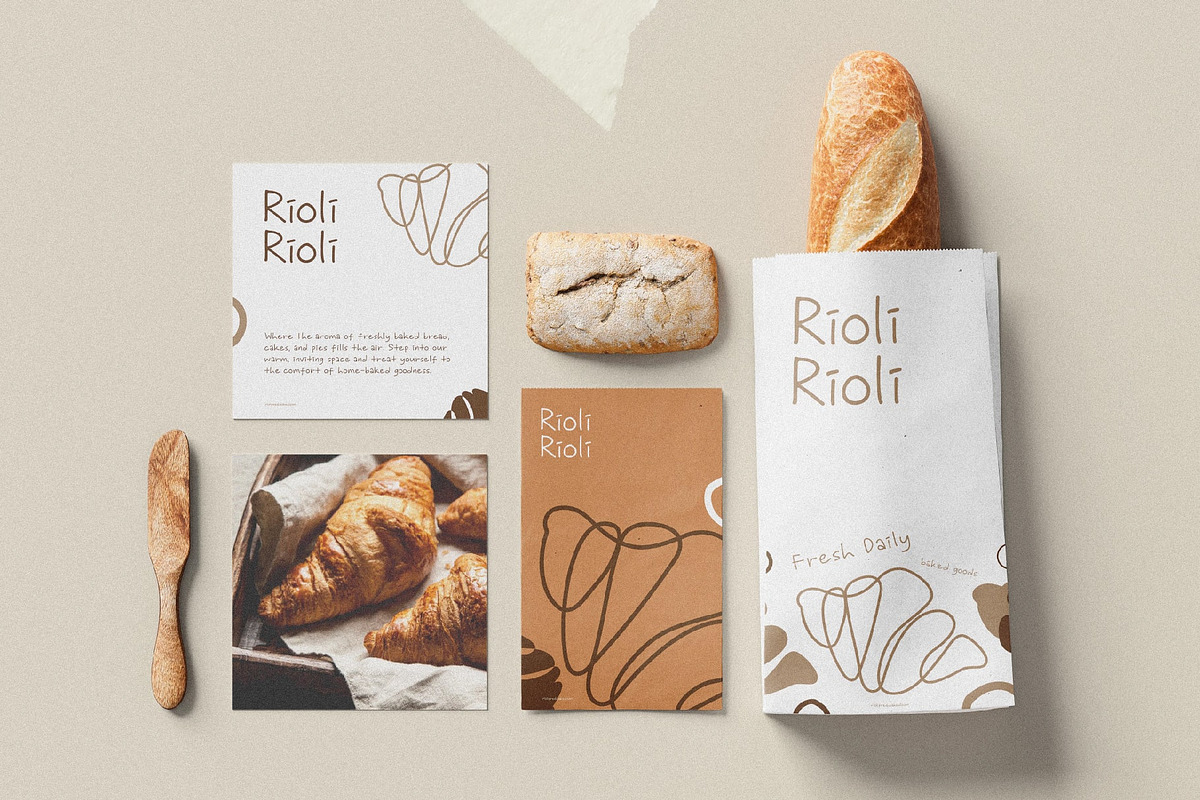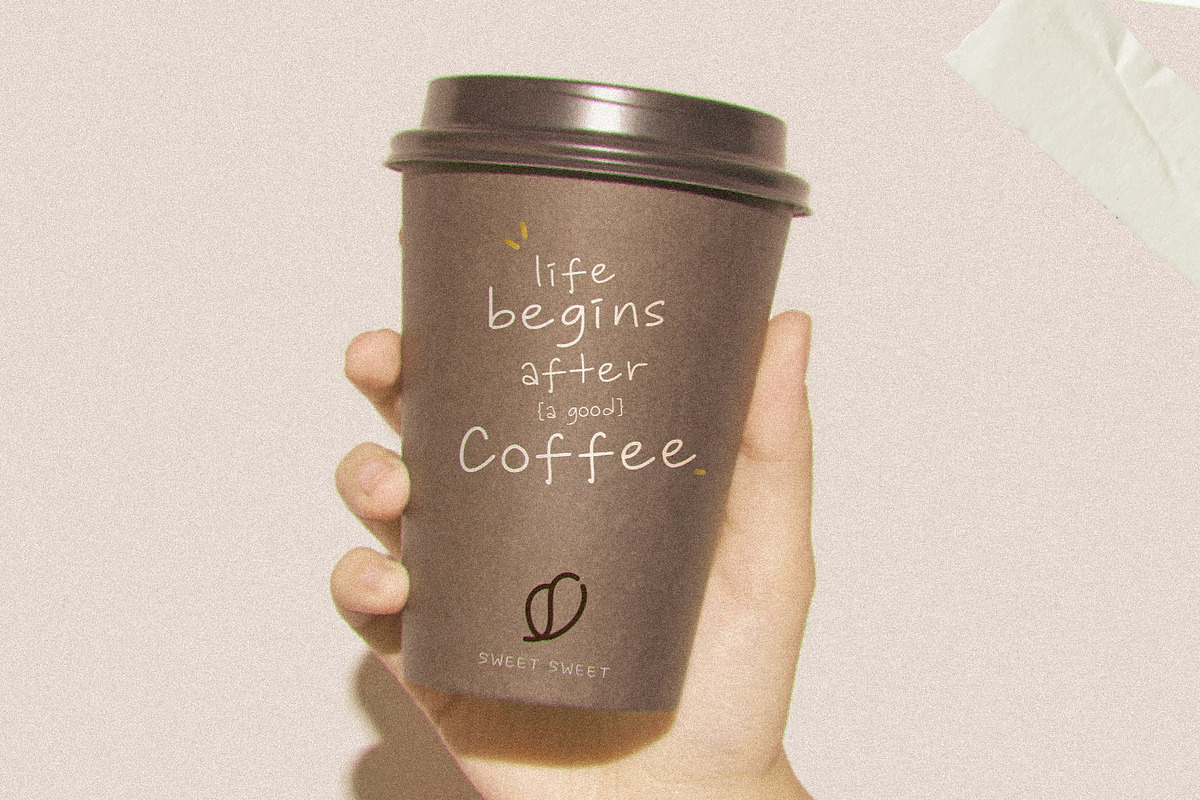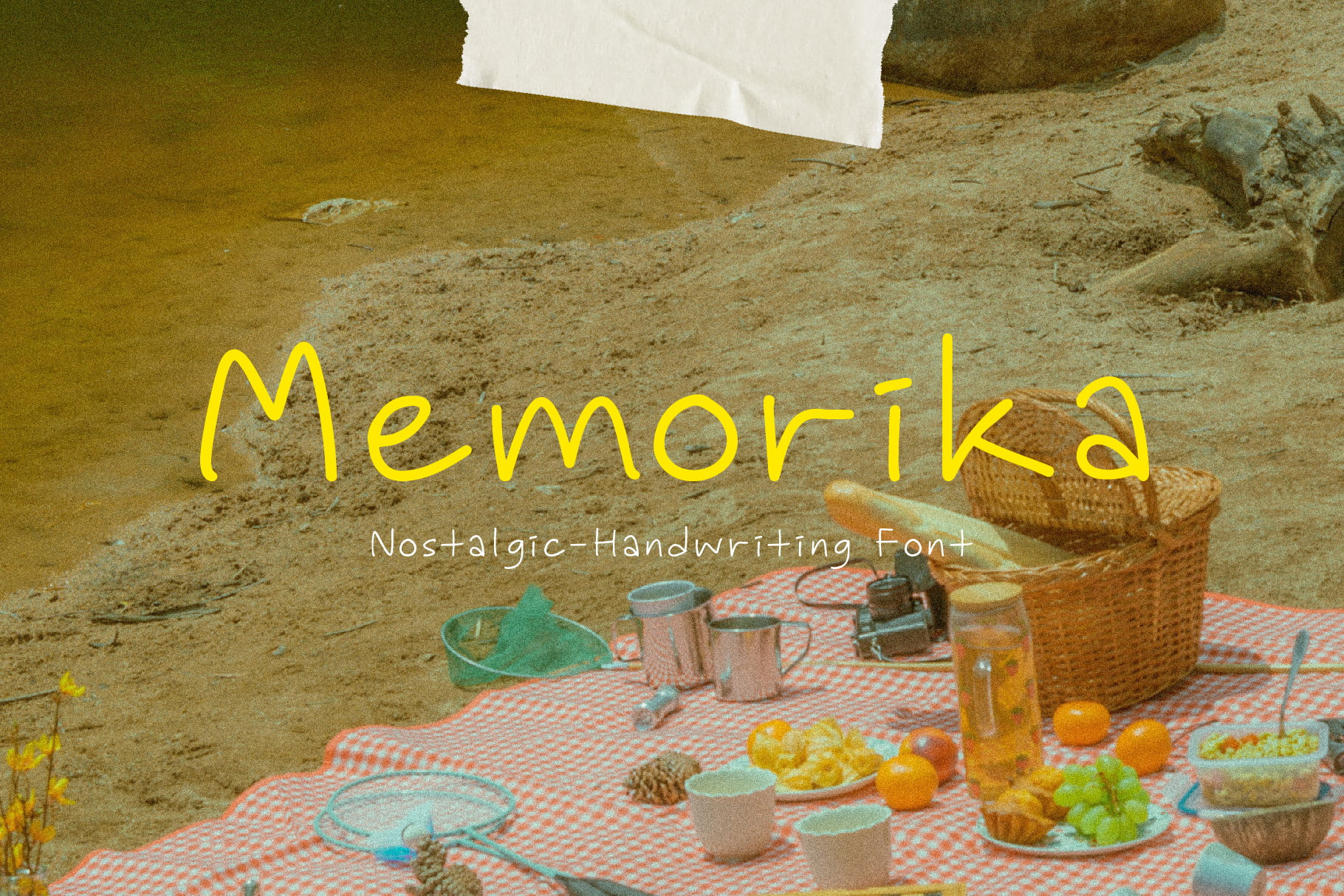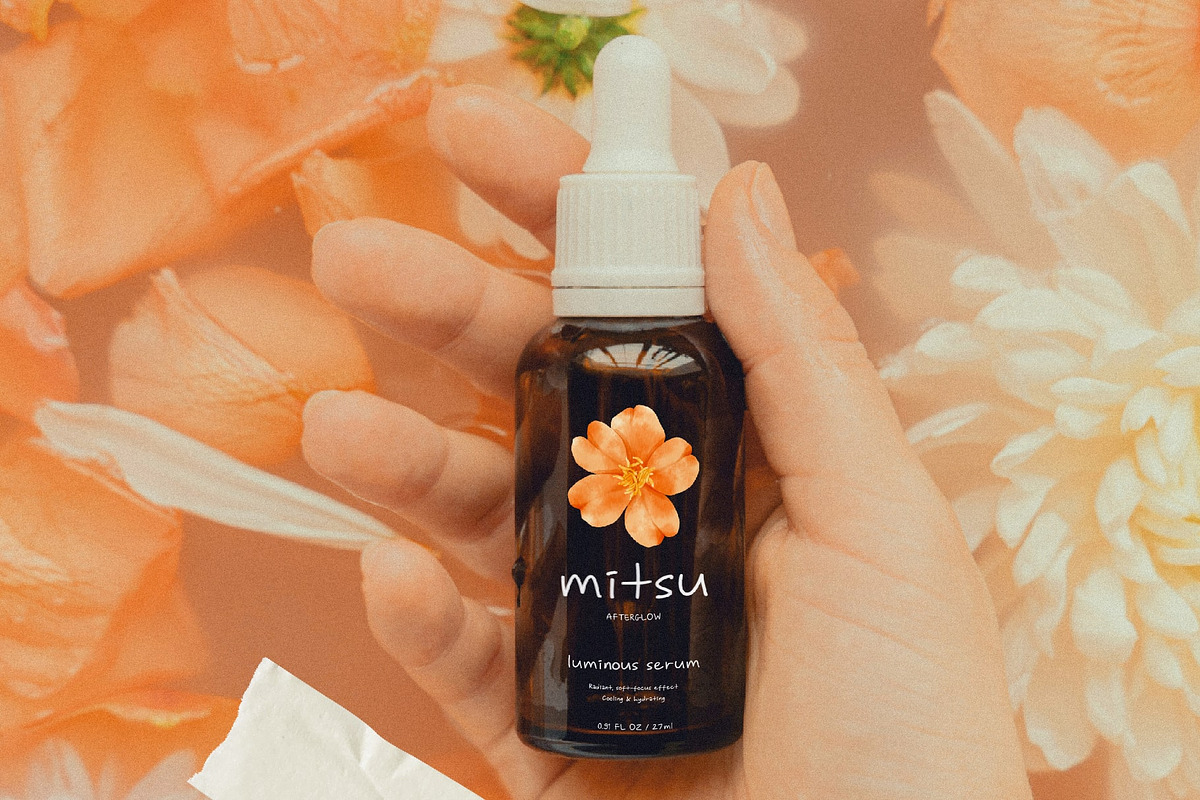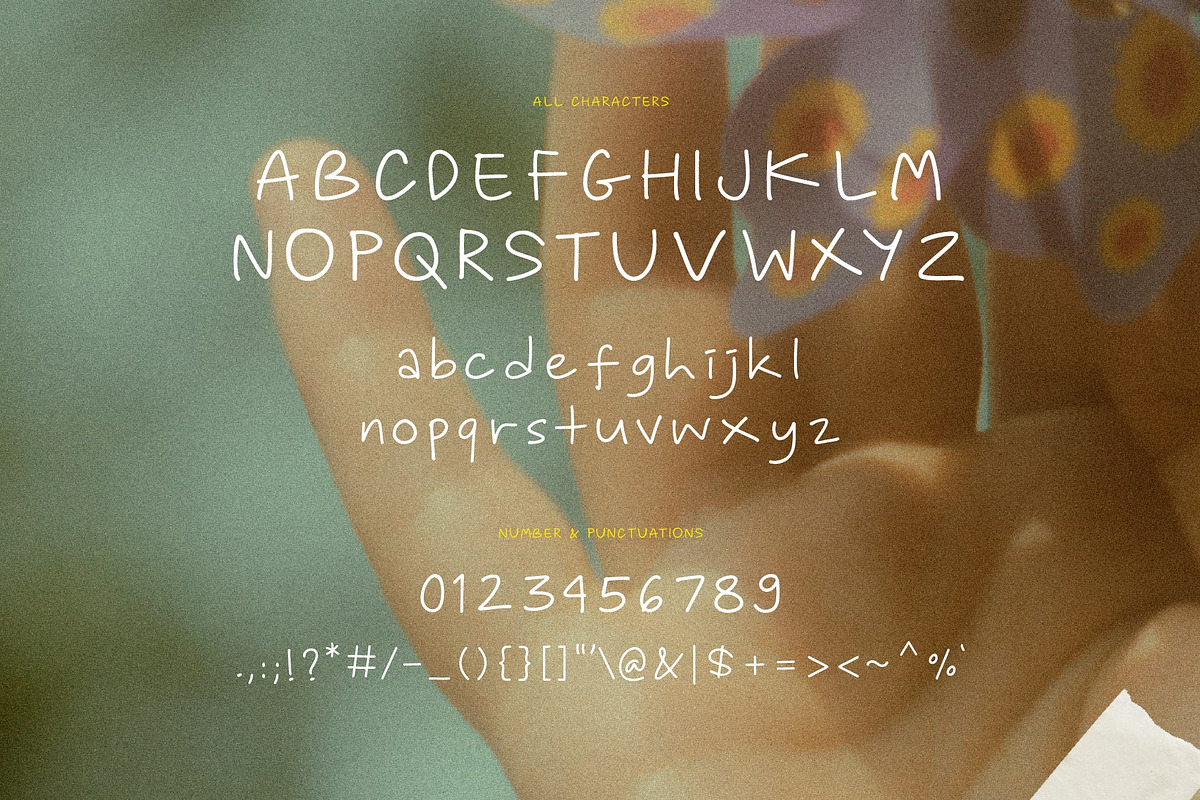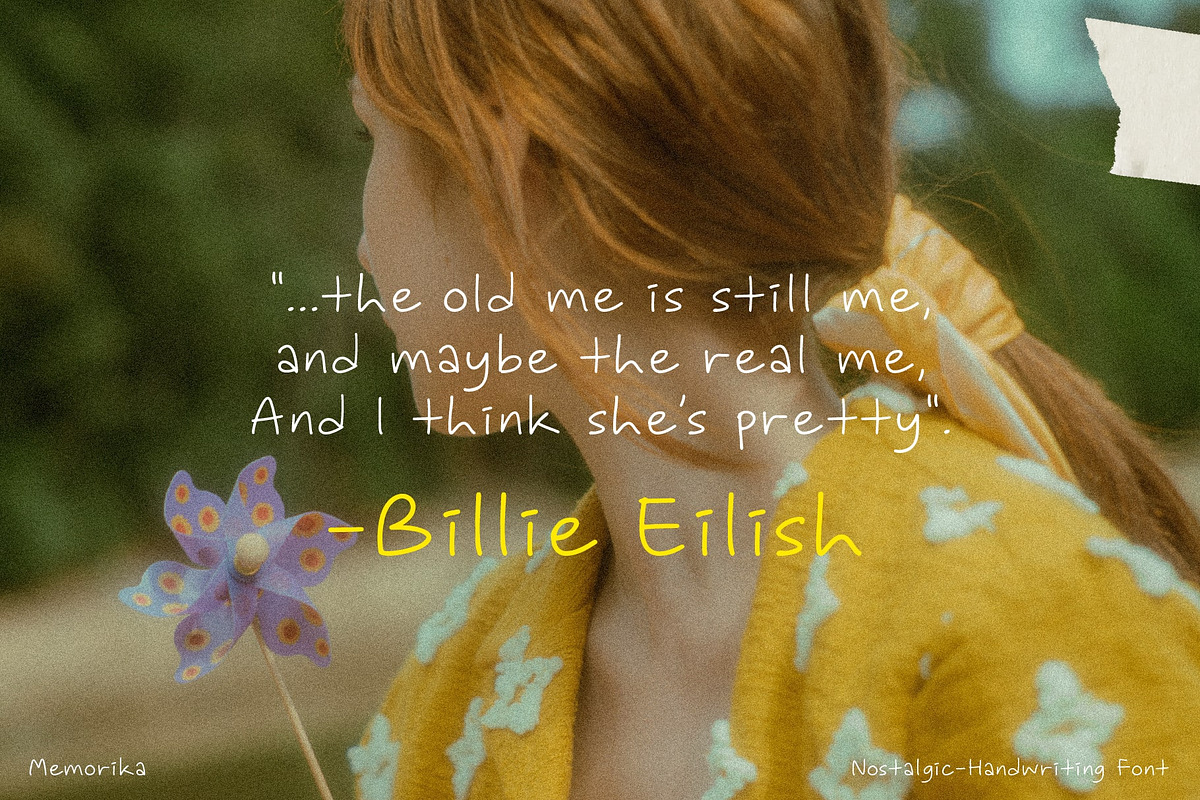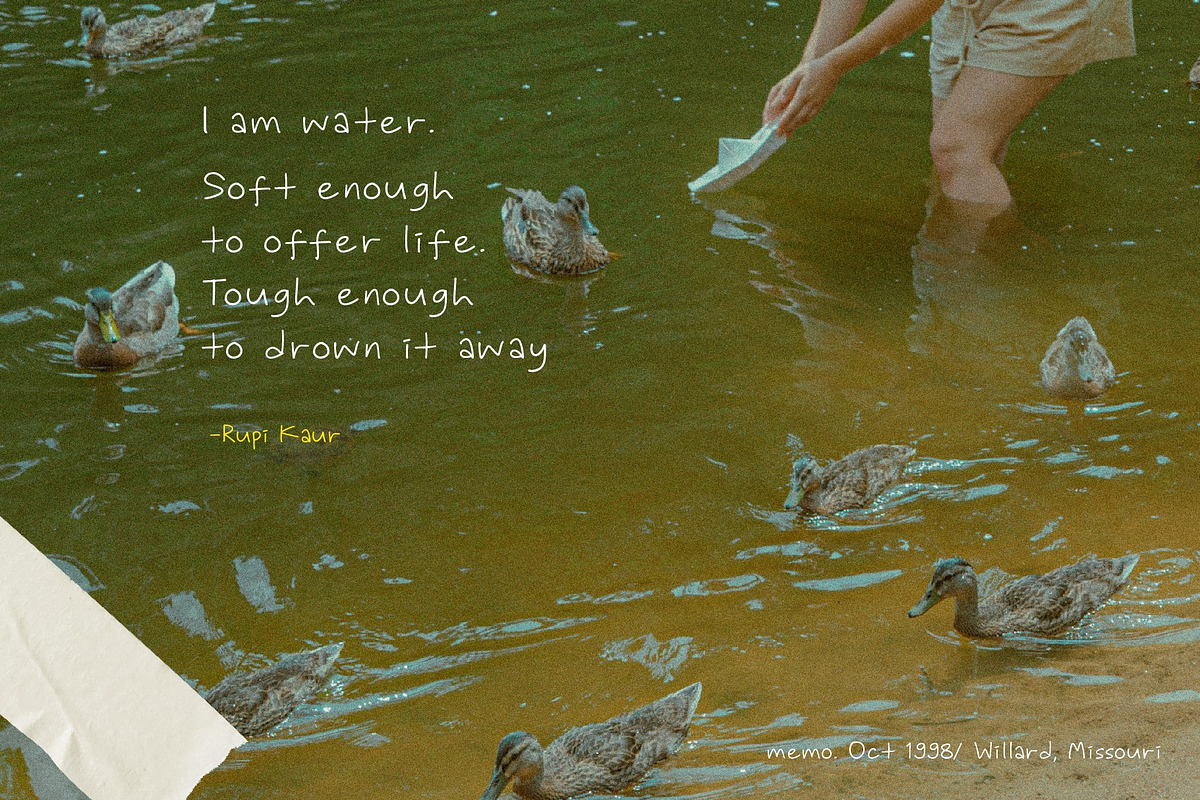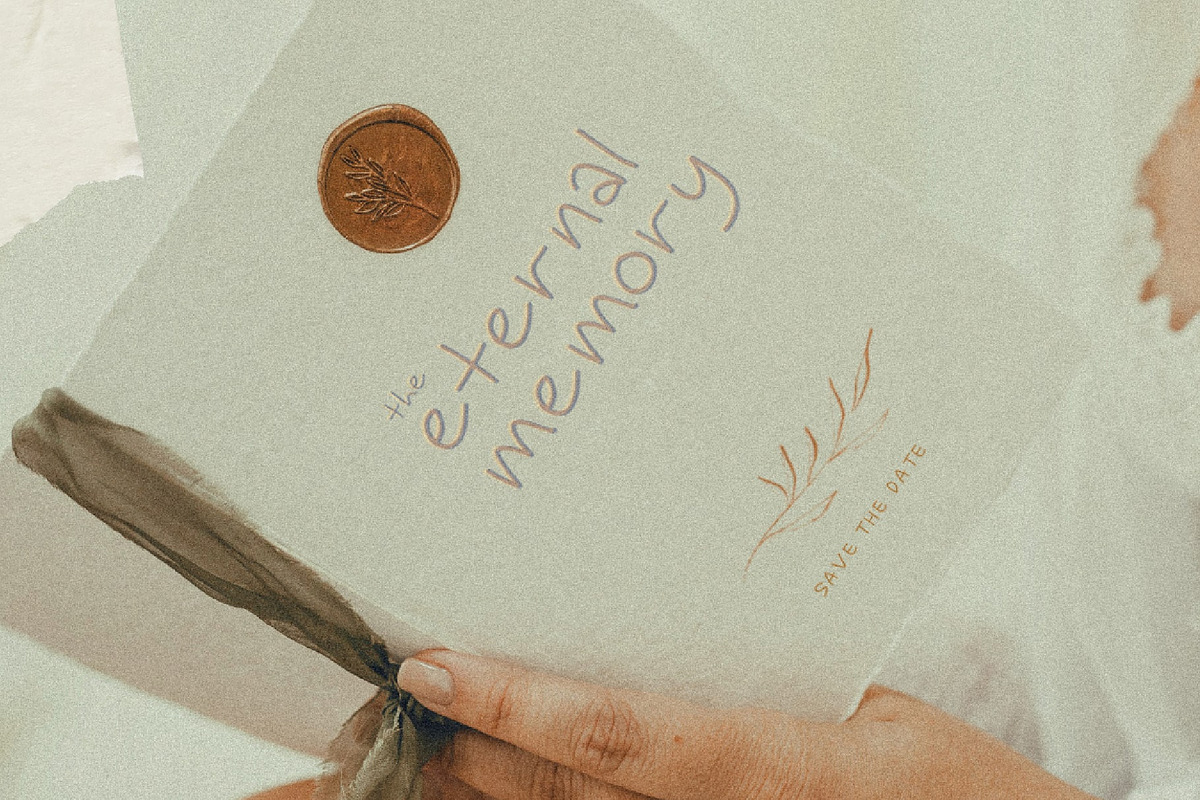
Memorika Nostalgic-Handwriting Font
Bring a casual warmth to your words with Memorika, a free-flowing handwritten font that captures the charm of nostalgia and the spontaneity of neat handwriting. Its playful curves and natural imperfections echo the feeling of jotting down memories in a personal journal, scribbling a love note, or writing postcards on a summer trip.
With a full set of uppercase and lowercase letters, numbers, and punctuation, Memorika gives you all the essentials to add a handwritten touch to your projects.
Whether you’re designing casual invitations, packaging, branding, or simply adding a human note to digital work, this font turns your ideas into something memorable.
- Personal Editorial Layouts
- Greeting Card & Notes
- Lifestyle Social Media Post
- Casual Invitations
- Branding Identity and Packaging Featured Font
- Contemporary Editorial Design
- Minimal Poster Design